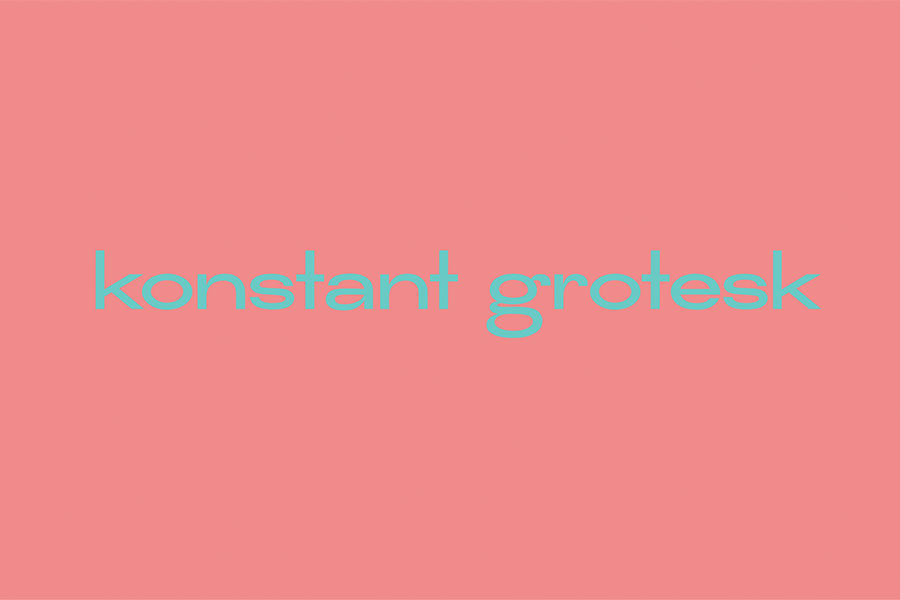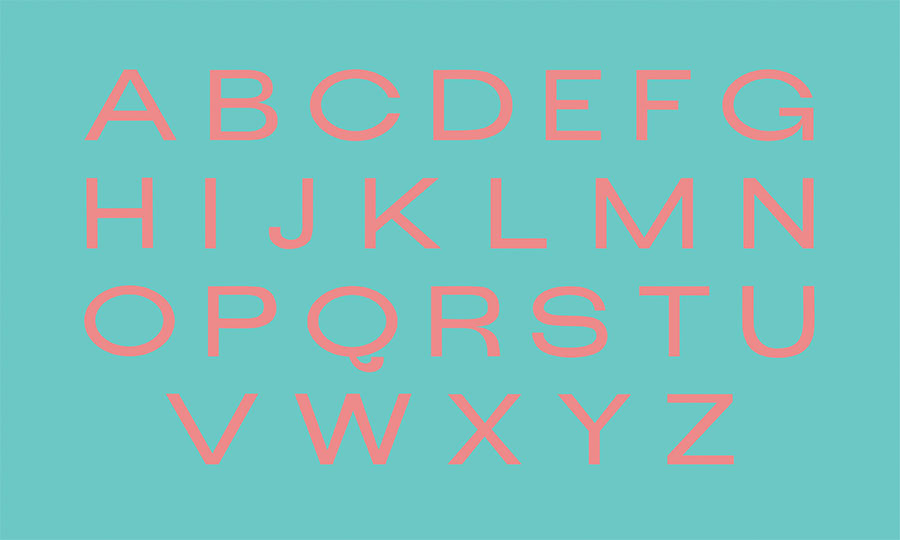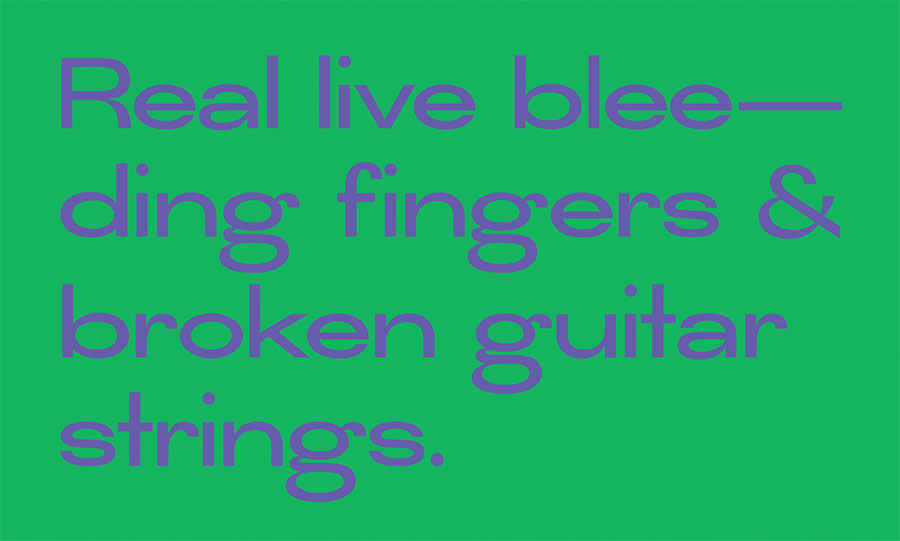
Konstant Grotesk is a extended size sans serif font free to download. The design I guess must be inspired by the recent rebranding of Dropbox with the usage of more unusual typeface for a tech startup with unexplainable color combinations.
Konstant Grotesk can be used as display and can brings out some sort of retro feeling if pair it well with images and colors. It comes with basic latin alphabets with limited sets of symbols.
- Designer: Stephen French
- Category: Display, Sans Serif